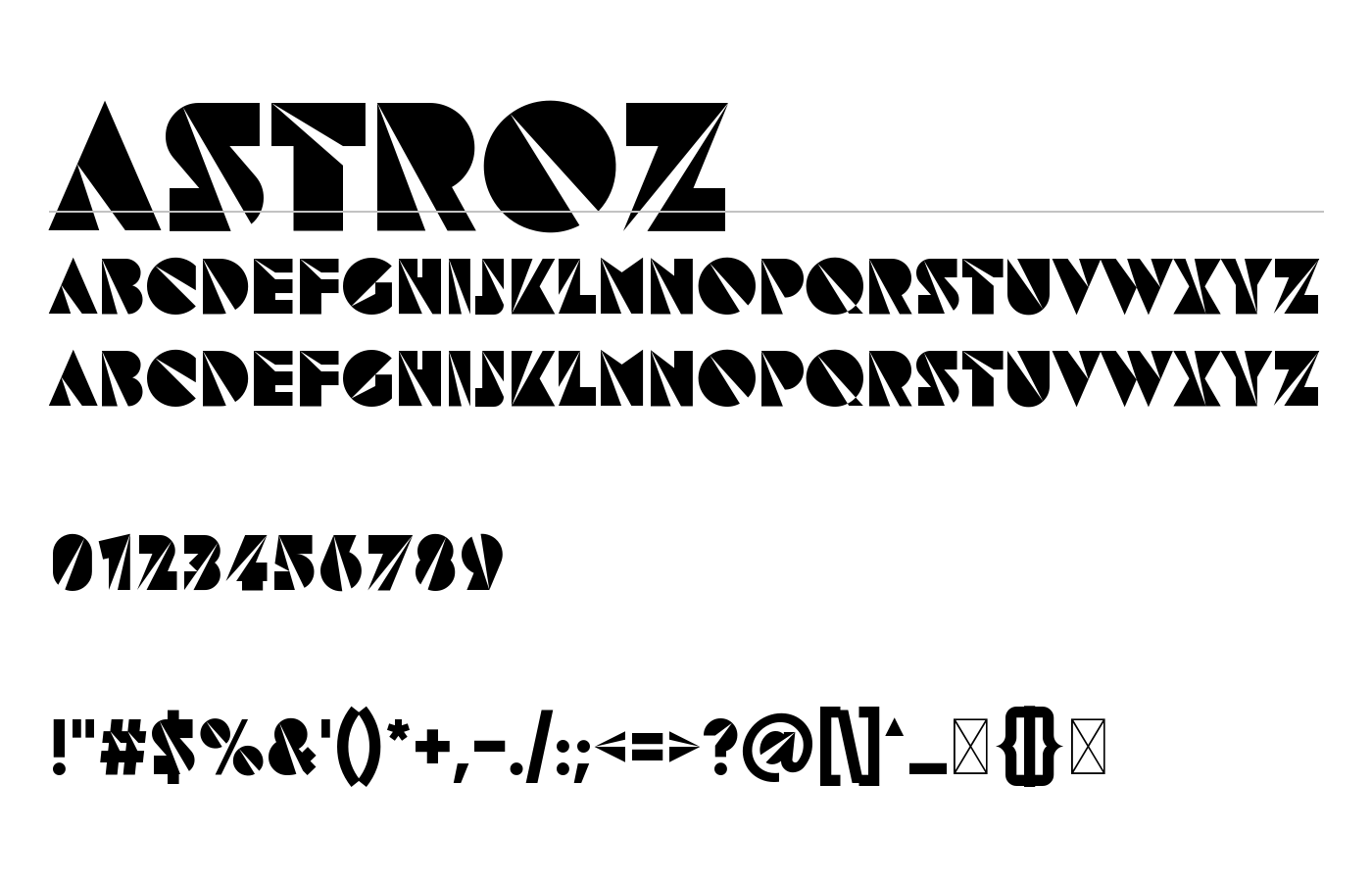
Astroz is a bold, geometric display font characterized by sharp angles and striking contrasts between solid and negative spaces. Its futuristic and artistic style makes it ideal for creative headlines, logos, and branding projects that seek a modern, edgy, and eye-catching look. This font works best in contexts where strong visual impact is needed rather than extended text.
Astroz Font
About Astroz Font
| Font family | Astroz Font |
| Designer | Marco Pezzotta |